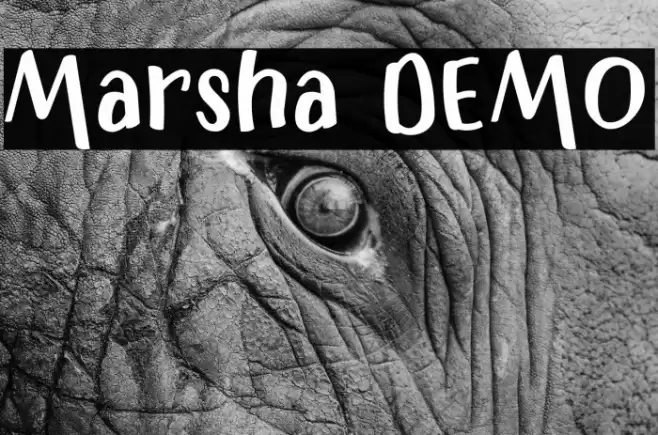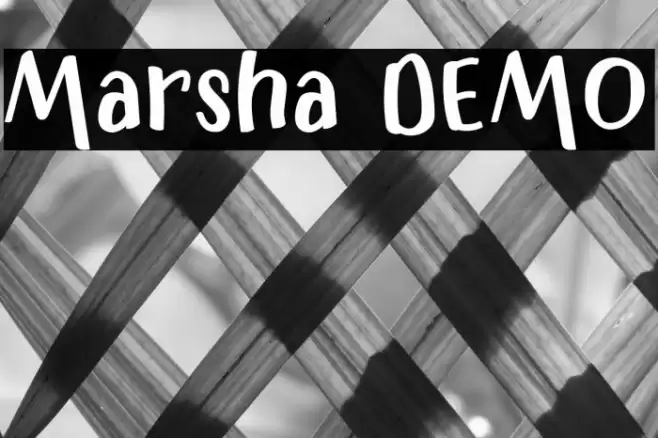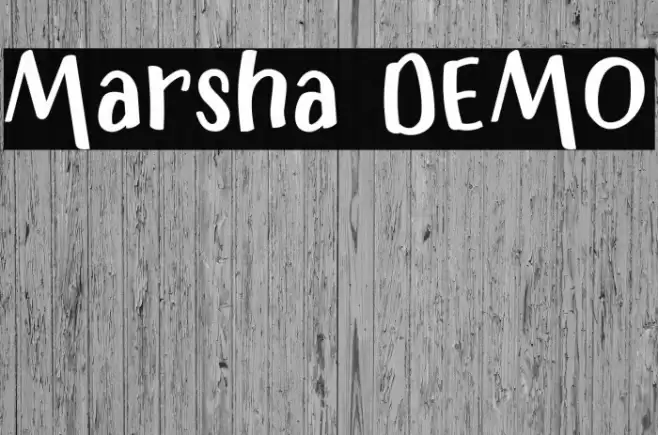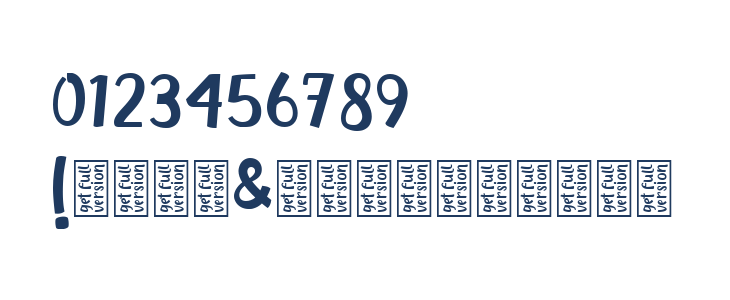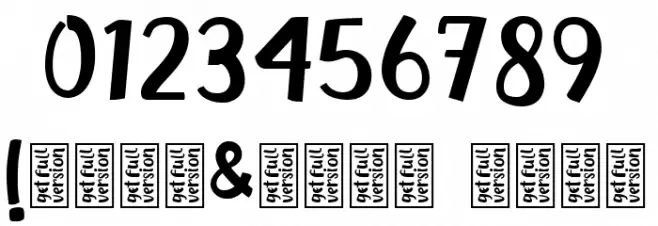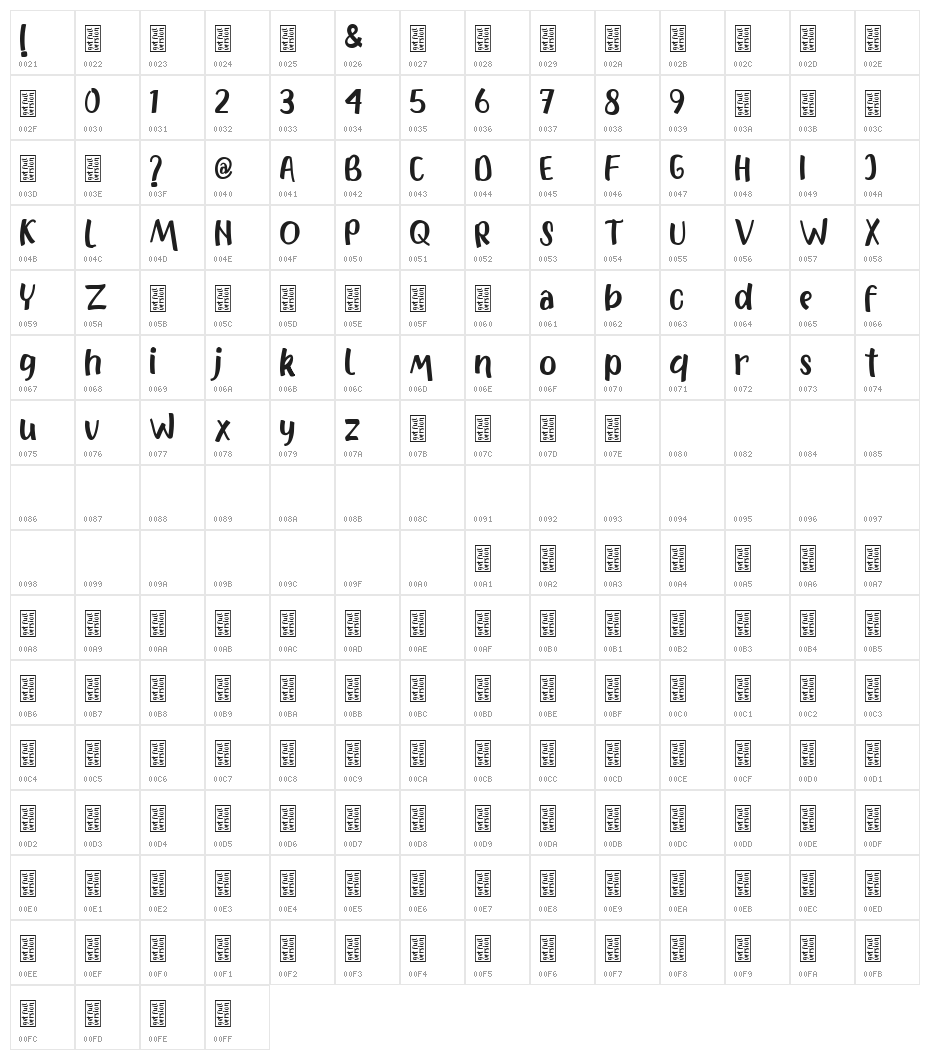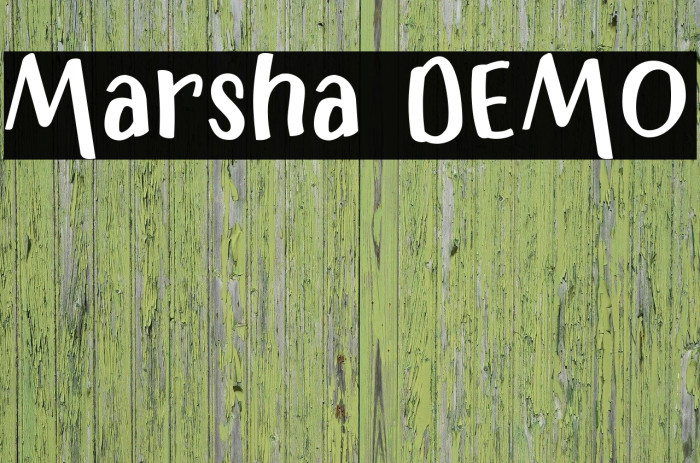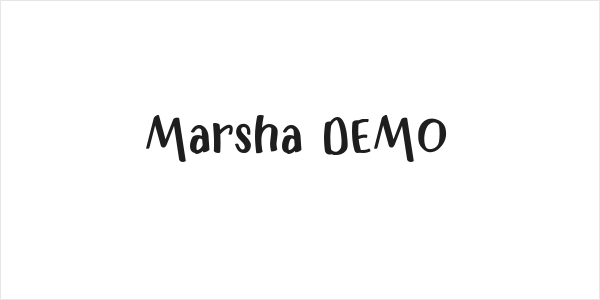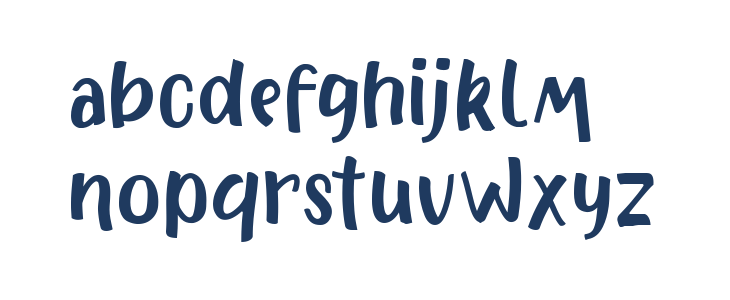
Marsha DEMO Font
Marsha DEMO Description
This playful and energetic font features a handwritten style with bold, rounded strokes that give it a friendly and approachable appearance. The letters are slightly irregular, adding a whimsical touch that enhances its charm. The uppercase and lowercase characters maintain a consistent style, with a noticeable bounce and flow that suggests movement and creativity. The numerals are equally playful, matching the overall aesthetic. Special characters are included, maintaining the same lively style. This font is perfect for projects that require a personal and informal touch.
A playful, handwritten font with bold, rounded strokes and a whimsical style from Cartoon fonts.
- Proposed Projects: Ideal for greeting cards, children's books, playful branding, and creative posters.
- Overall Style: Playful